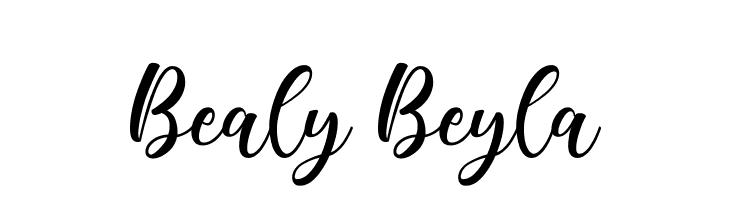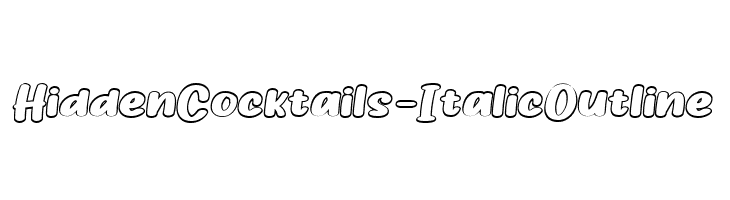
A geometric, art deco-inspired font with sharp angles and bold lines.
A playful, hand-drawn font with a cartoonish and whimsical style.
An elegant, flowing script font with intricate swirls and loops.
A playful, rounded font with a harmonious blend of geometric and organic shapes.
A bold, geometric outline font with a futuristic and industrial design.
A bold, geometric font with a modern, angular design.
A bold, blackletter font with a vintage, distressed texture.
A casual handwritten font with a fluid and personal touch.
A casual, fluid handwritten font with smooth, flowing lines.
A playful and whimsical font with tall, narrow letterforms and dynamic strokes.